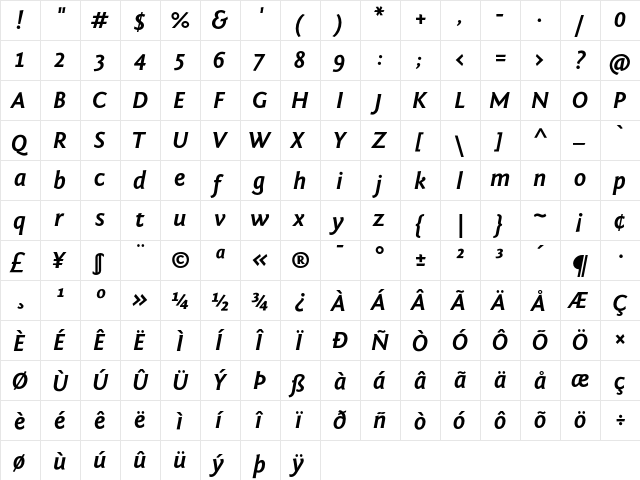
Fontin Sans Bold Italic
Bold Italic · Jos Buivenga  ·
Design Context for Fontin Sans Typeface
Fontin Sans offers clean, dependable letterforms without strong stylistic allegiance, making it a practical choice for designers who need flexibility. Its italic angle brings a sense of urgency and motion to the letterforms. The heavy weight commands attention and anchors typographic hierarchies.
Pro Tip: Use Fontin Sans for emphasis, pull quotes, and subheadings where its slanted energy can add rhythm to the layout.